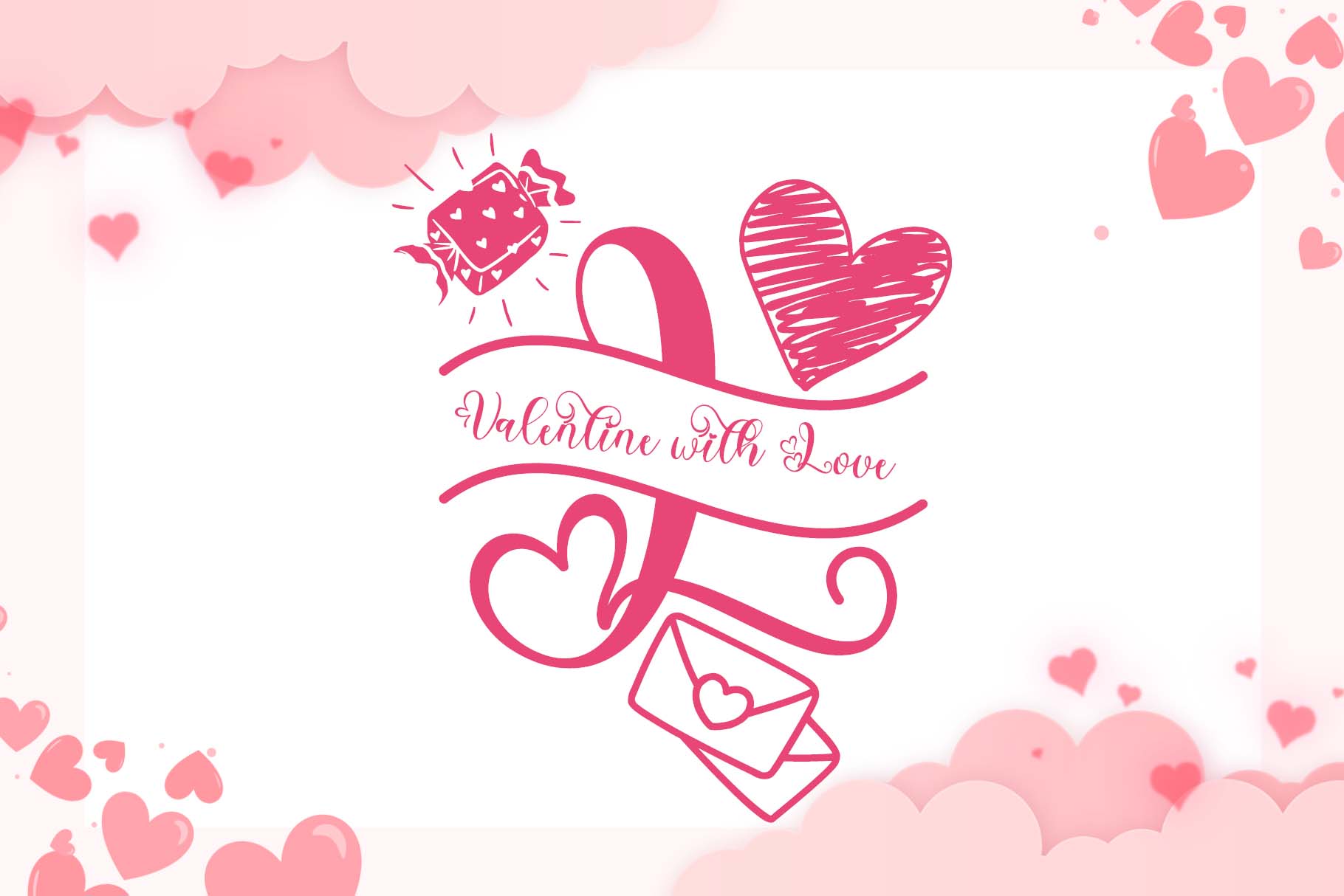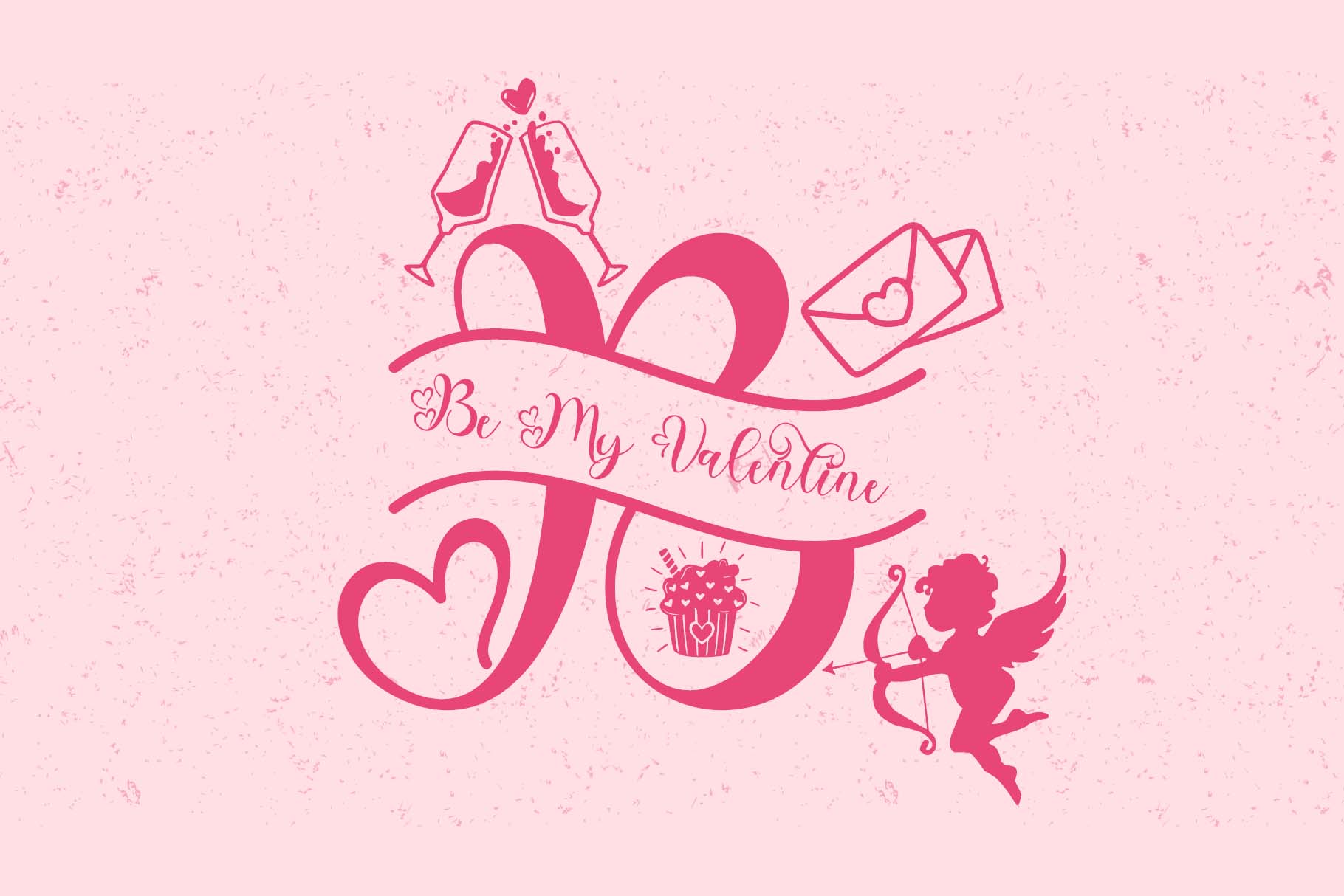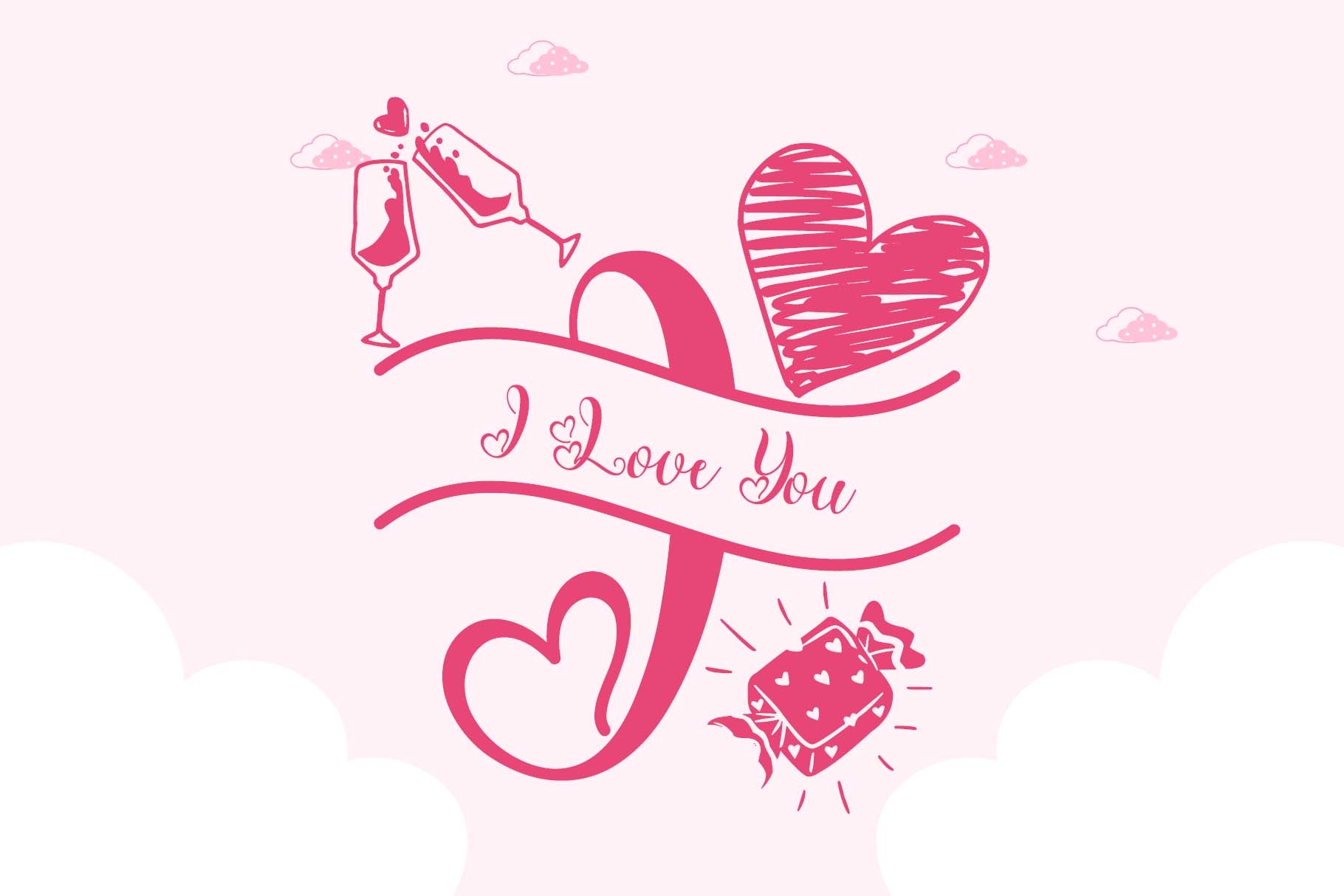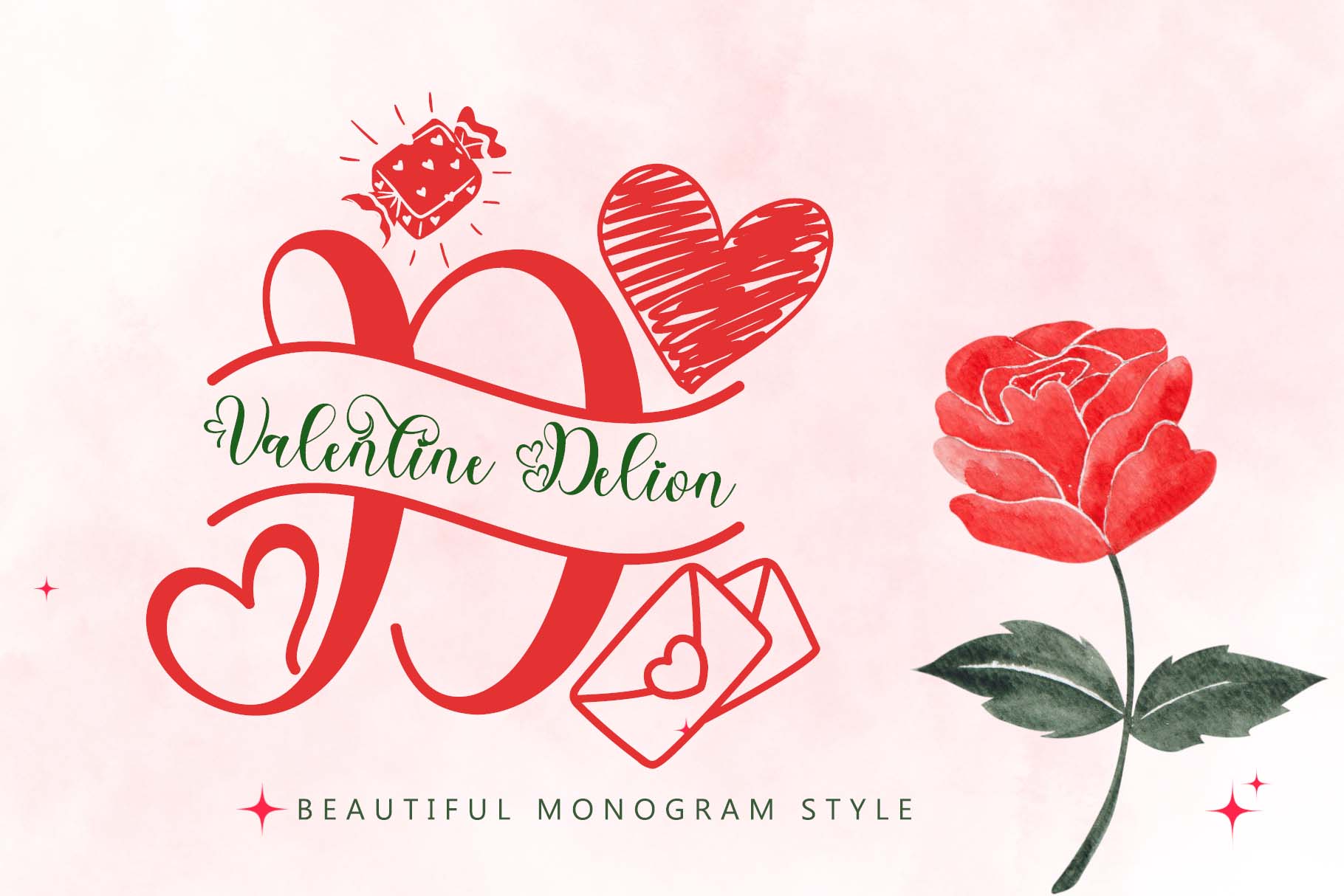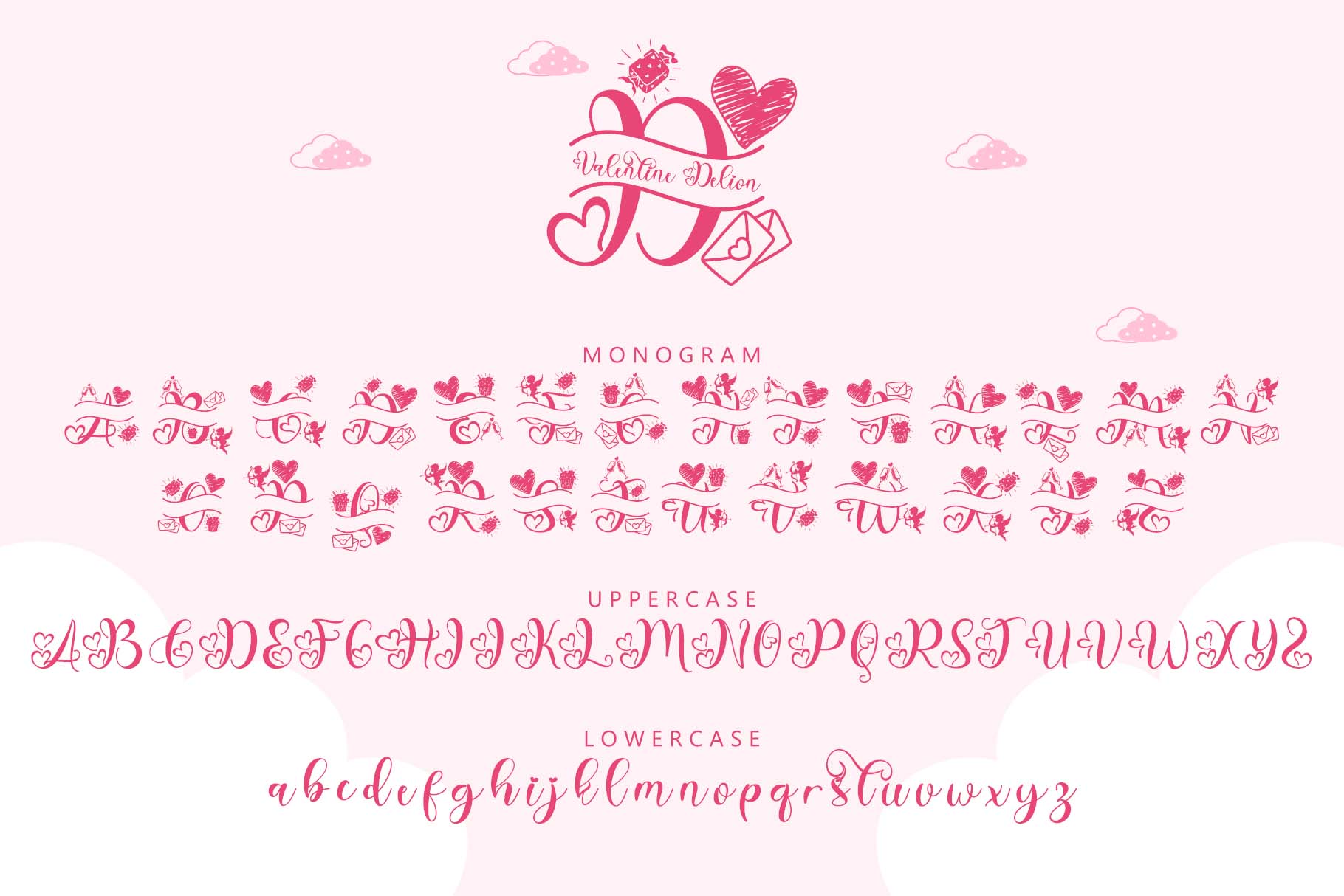
Valentine Delion Font
Valentine Delion Font is a timeless and elegant design, symbolizing love and individuality. Featuring interwoven initials framed by graceful floral accents, it embodies sophistication and charm. Perfect for personalizing gifts, wedding stationery, or luxury branding, this monogram blends traditional artistry with modern aesthetics, offering a unique signature for heartfelt occasions or exclusive creations. Its versatility enhances any personal or professional endeavor.